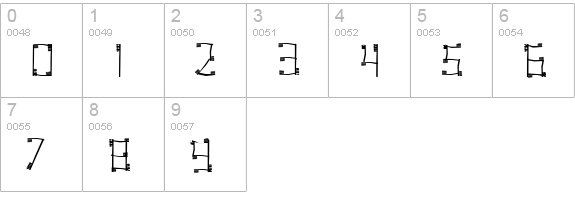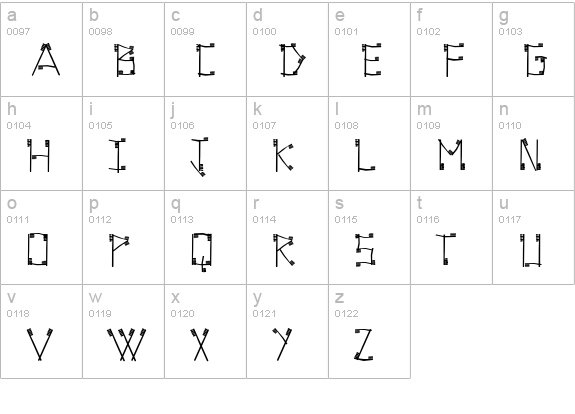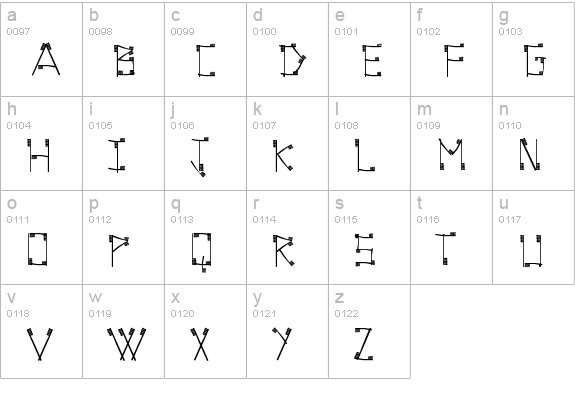
ToothBrush Font Details
ToothBrush font is an innovative and quirky typeface that brings a playful touch to any design project. Its distinctive brush strokes give it a handcrafted feel, adding a unique and artistic element to your work. With its bold and dynamic letterforms, ToothBrush font is perfect for headlines, logos, posters, and any other creative endeavor that calls for a touch of creativity and personality. The free ToothBrush font is not only visually appealing but also incredibly versatile. Its wide range of characters and glyphs allow for seamless integration into various design styles and applications. Whether you're designing a children's book cover, a greeting card, or a website header, ToothBrush font will add a touch of whimsy and charm. One of the best aspects of ToothBrush font is that it is freely available to download at FontsMarket.com. This means that you can instantly access this delightful typeface and start using it in your projects without any cost or hassle. FontsMarket.com is a reputable source for high-quality fonts, and their easy-to-use platform ensures a seamless experience when downloading and installing the ToothBrush font. Embrace the creativity and joy that ToothBrush font brings to your designs. Its playful nature and bold character will make your text pop and stand out from the crowd. Whether you're a professional designer or a hobbyist looking to add a unique touch to your personal projects, ToothBrush font is a must-have in your font library. Download it for free today at FontsMarket.com and let your imagination run wild with this delightful typeface.